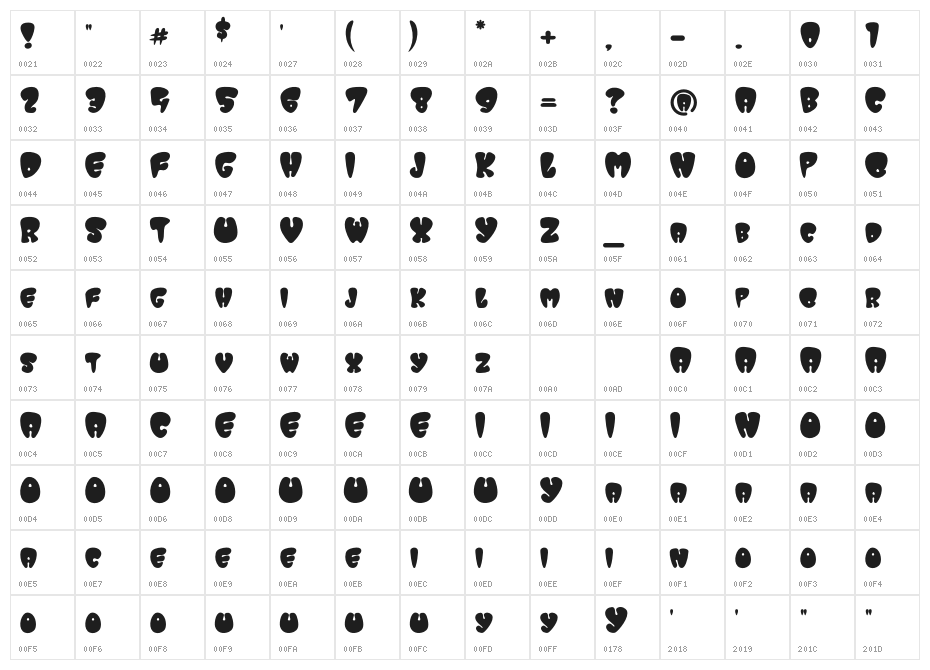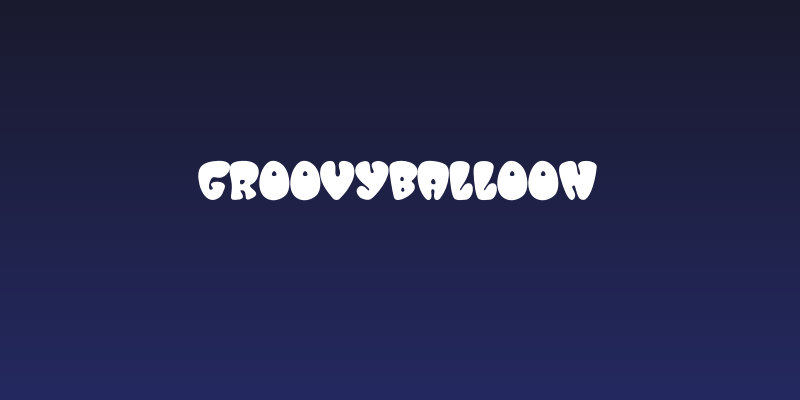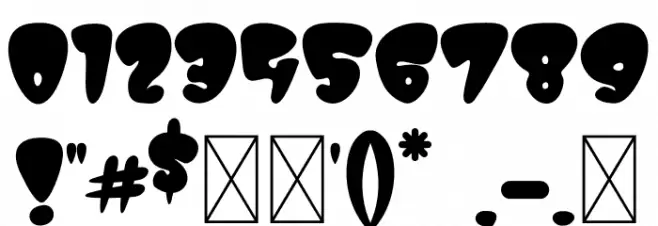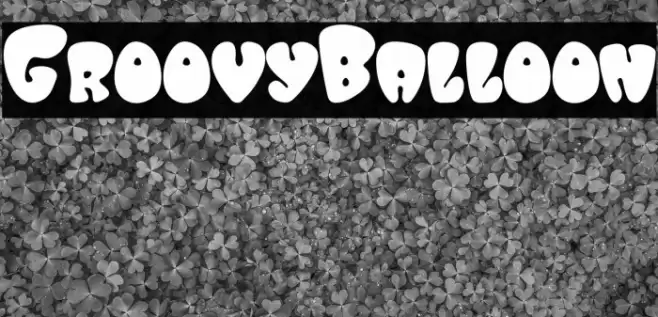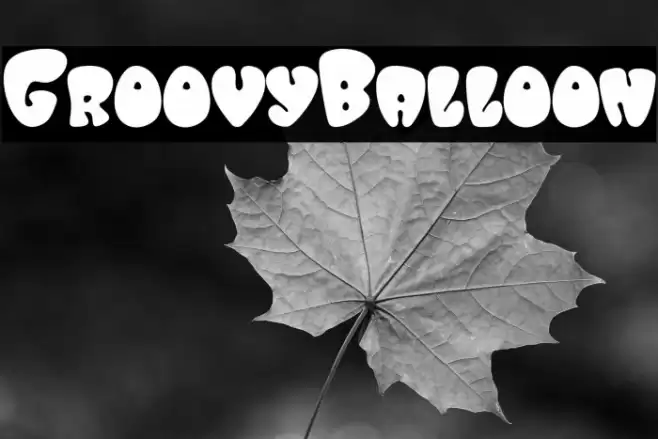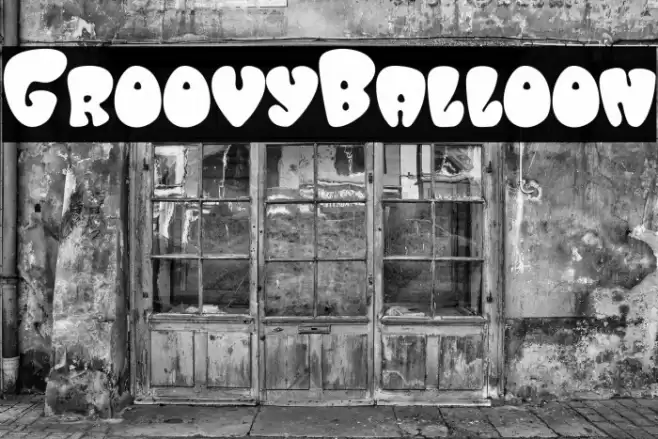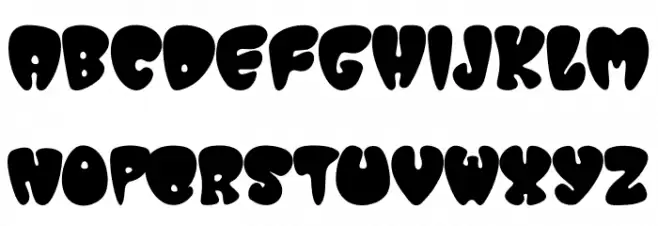
GroovyBalloon Font
GroovyBalloon Description
This playful and bold typeface features rounded, balloon-like characters that exude a sense of fun and whimsy. Each letter is crafted with a thick, uniform stroke, giving it a bubbly and inflated appearance. The font maintains a consistent weight throughout, ensuring readability while adding a touch of personality to any design. Its unique style makes it ideal for projects that aim to capture attention and convey a lighthearted, joyful message. The characters are evenly spaced, contributing to a balanced and harmonious look. This typeface is perfect for creative projects that require a distinctive and lively touch.
| Overall Style | Playful, Fun, Whimsical |
| Proposed Projects | Ideal for children's books, party invitations, playful branding, and eye-catching posters. |